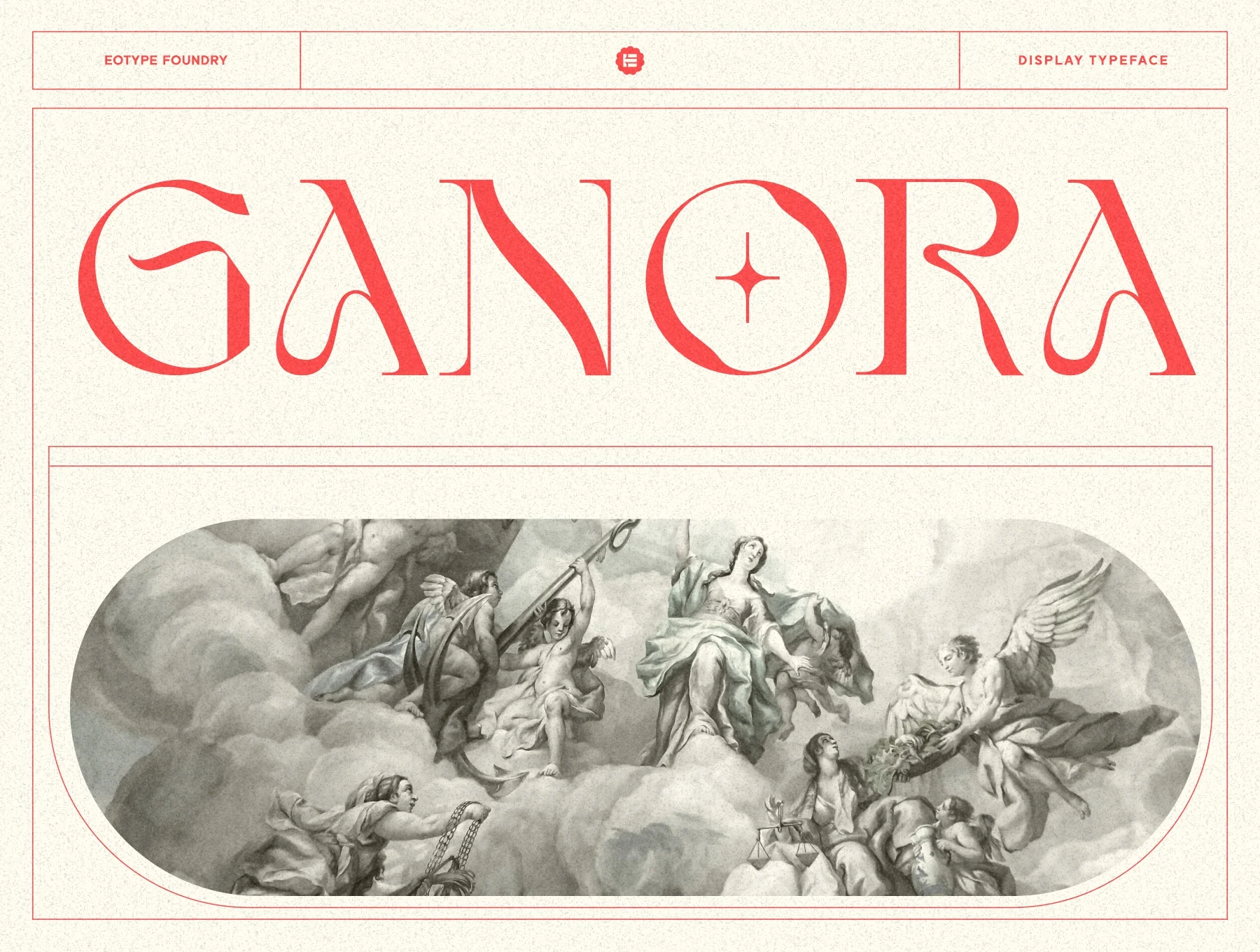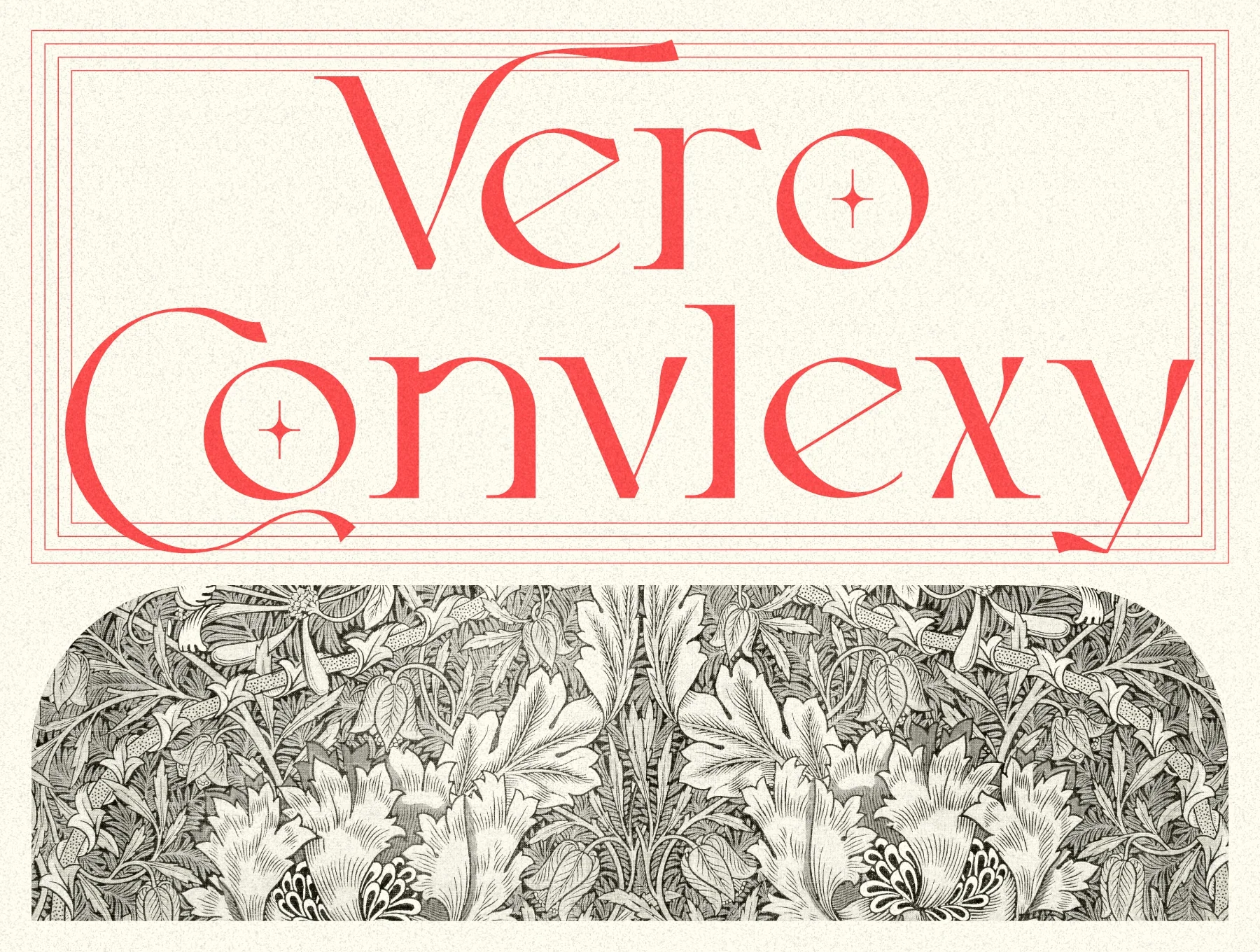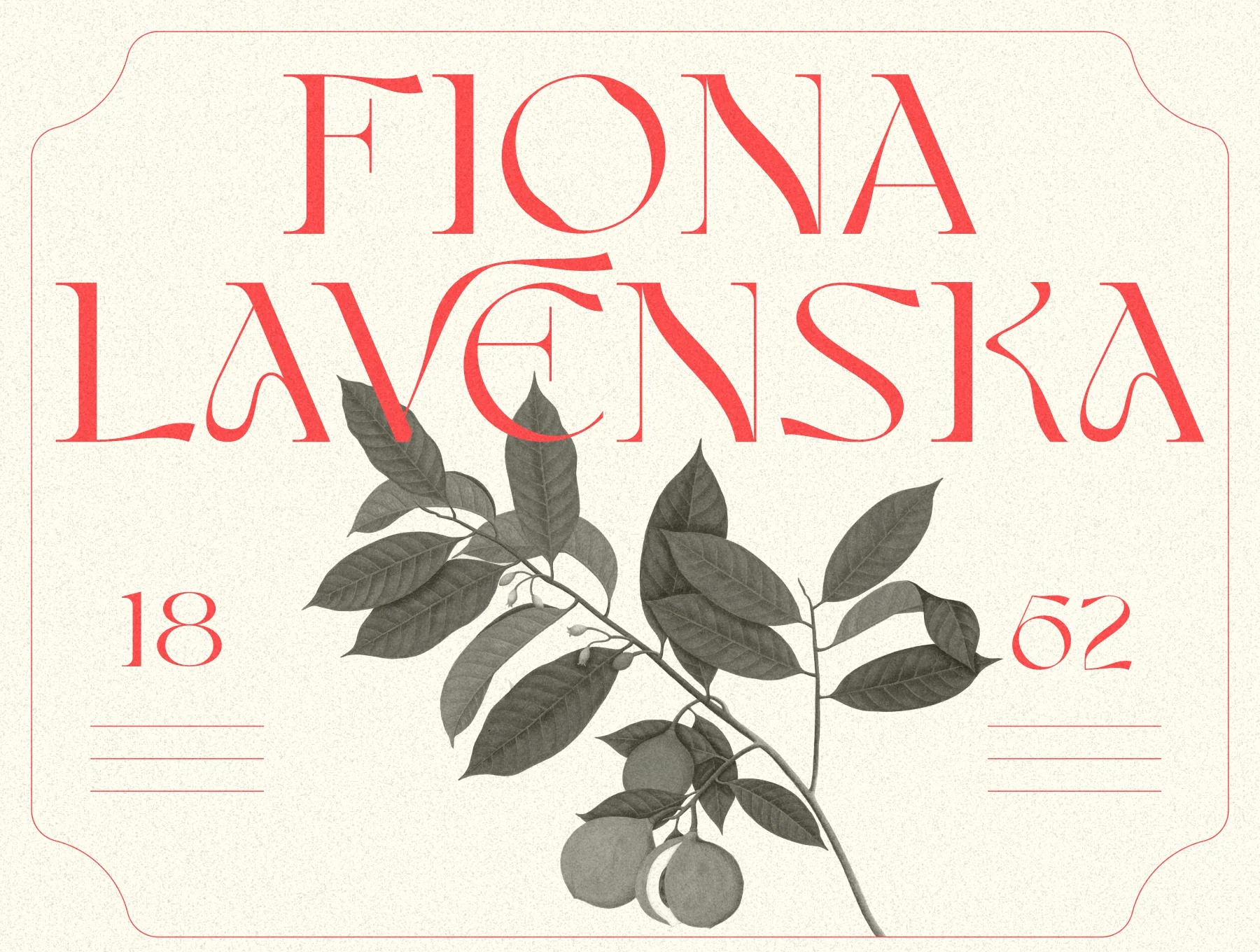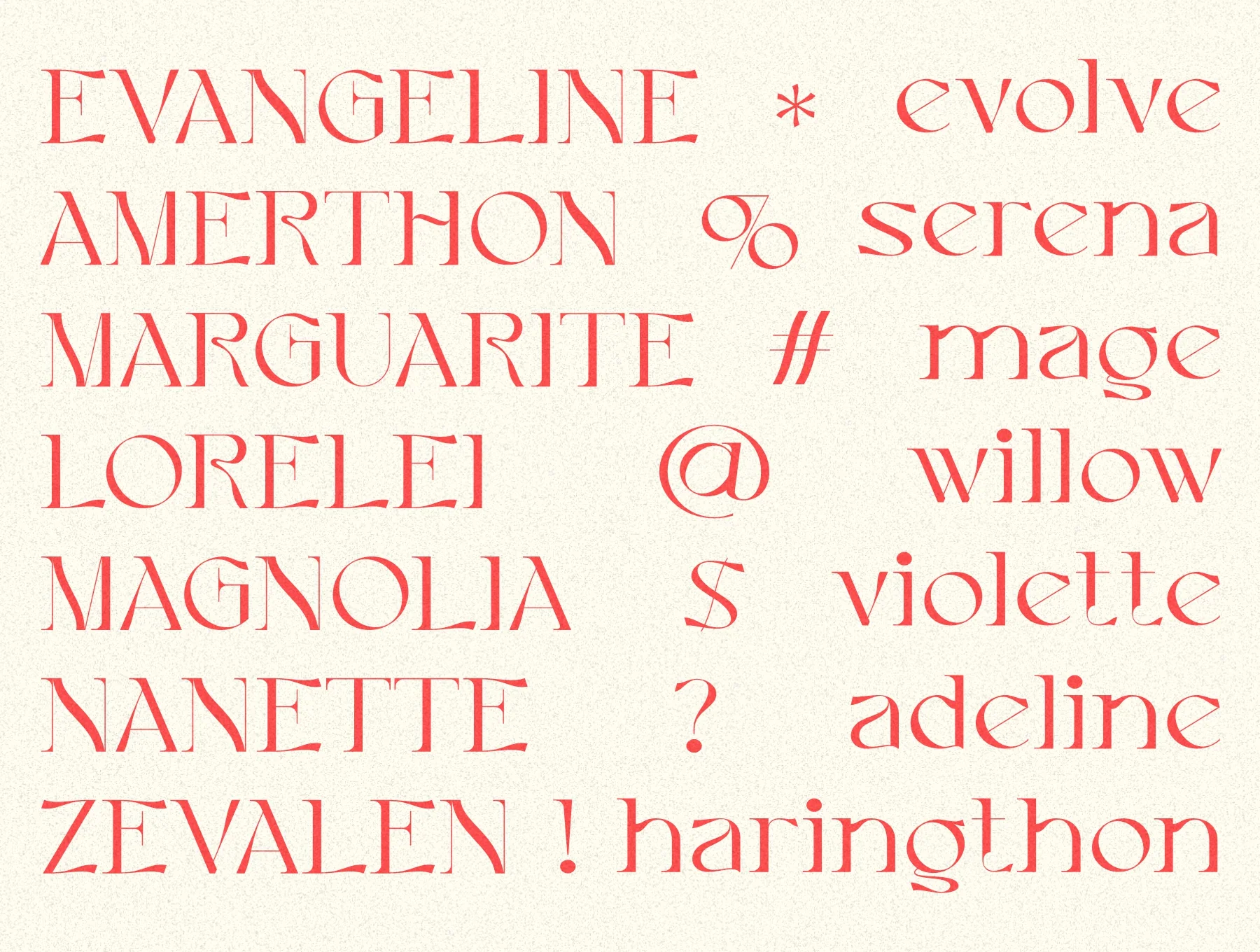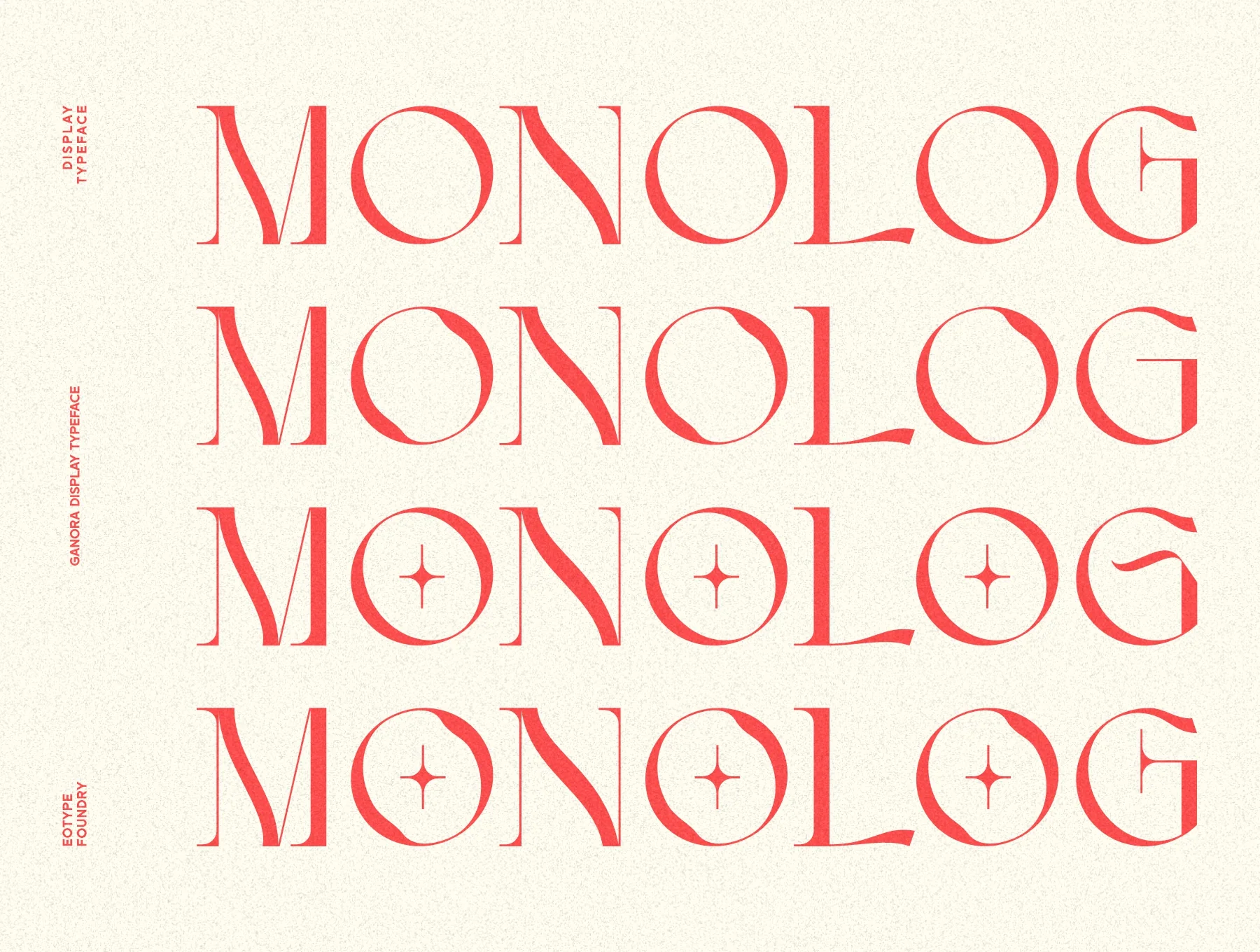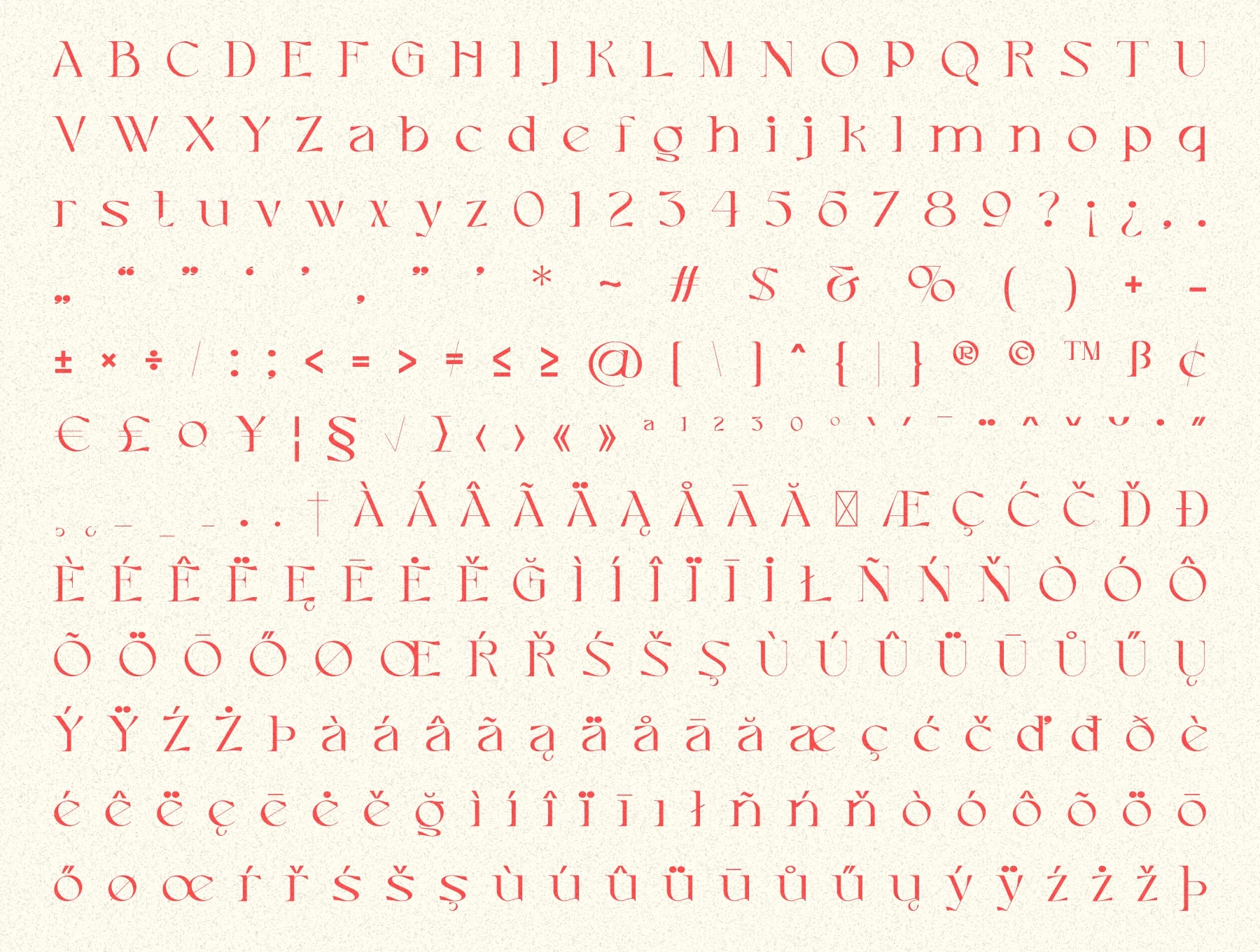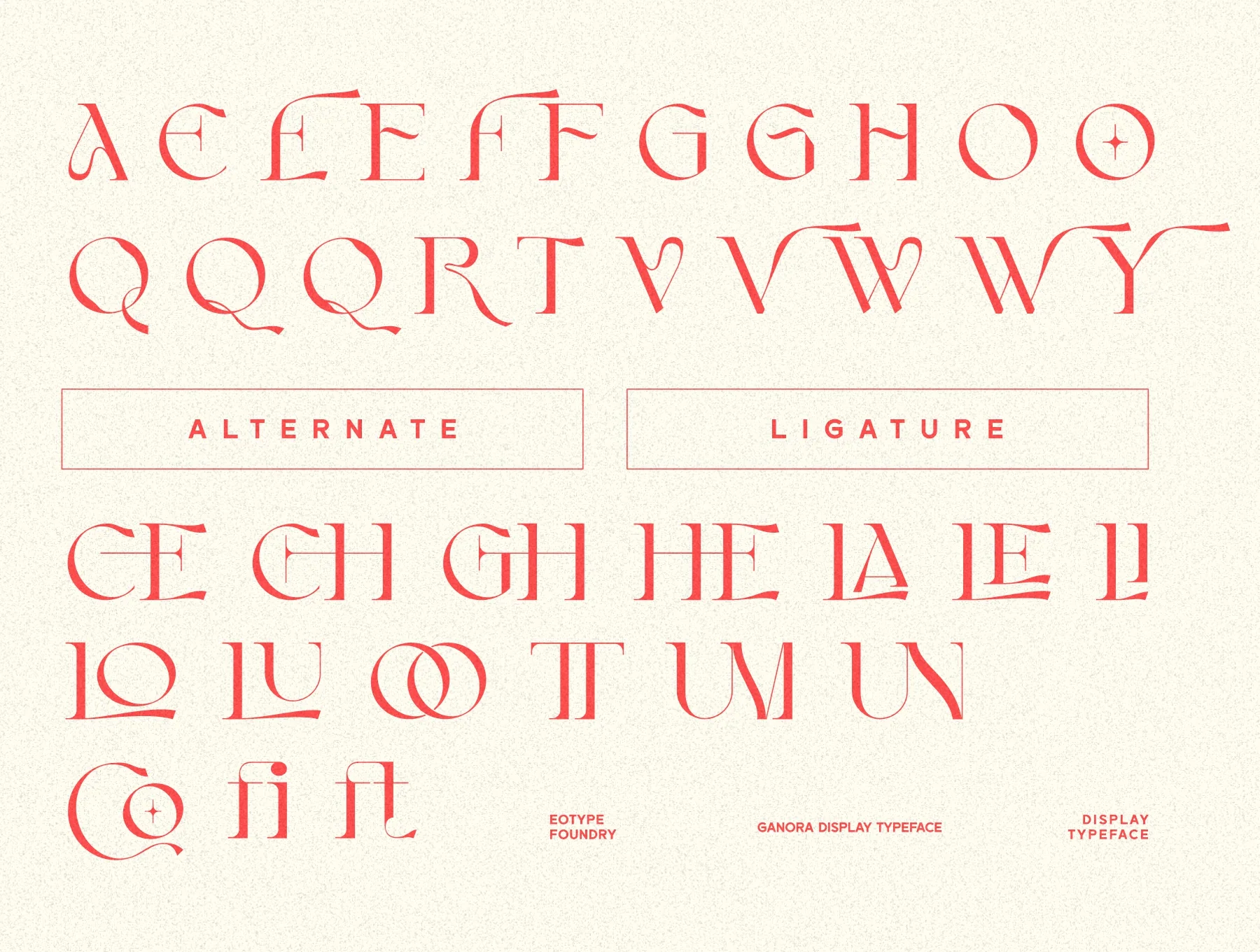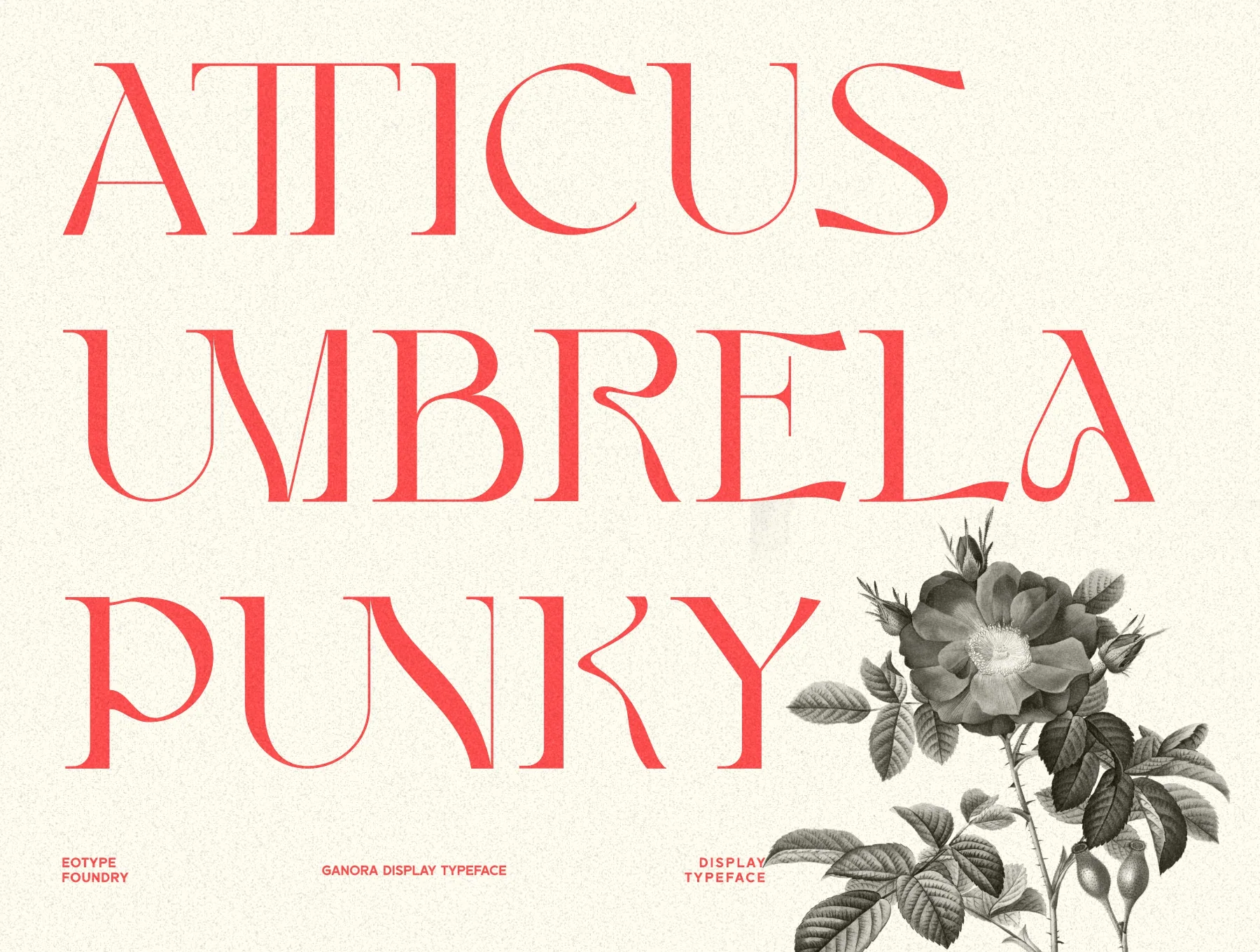
Ganora Font
Ganora display font
Basic glyph
Normal style
Numbers and punctuation marks
Style variants and ligatures
Ganora is a decorative semi-serif typeface with an elegant, artistic feel. It blends the readability of classic serifs with graceful modern curves, giving text a distinctive character. Alternates and ligatures make it ideal for logos, magazines, branding, and more.